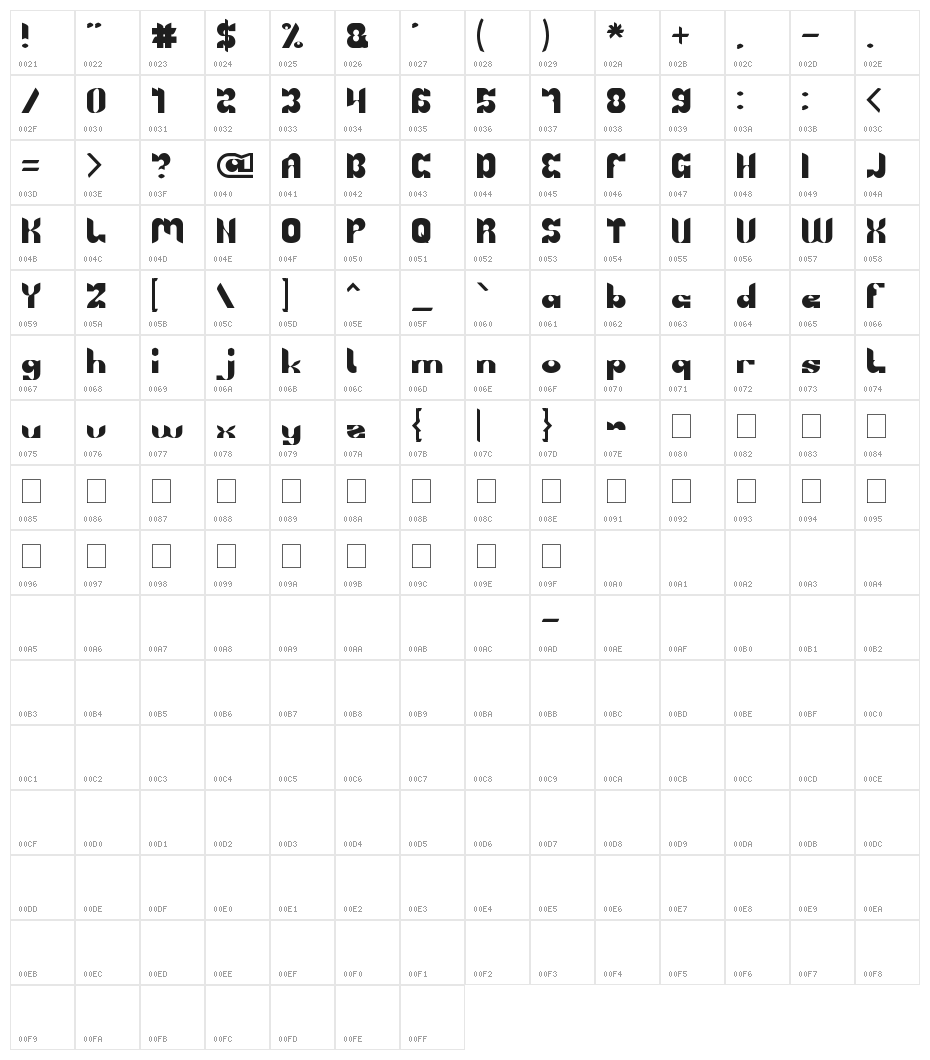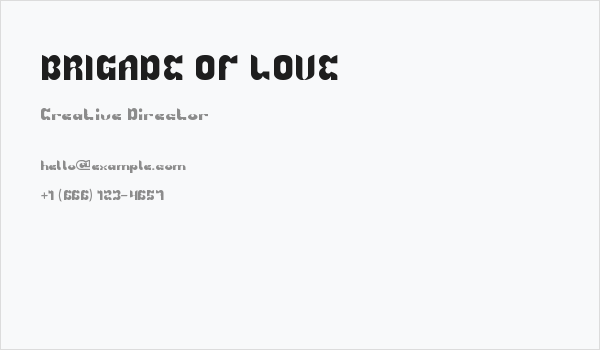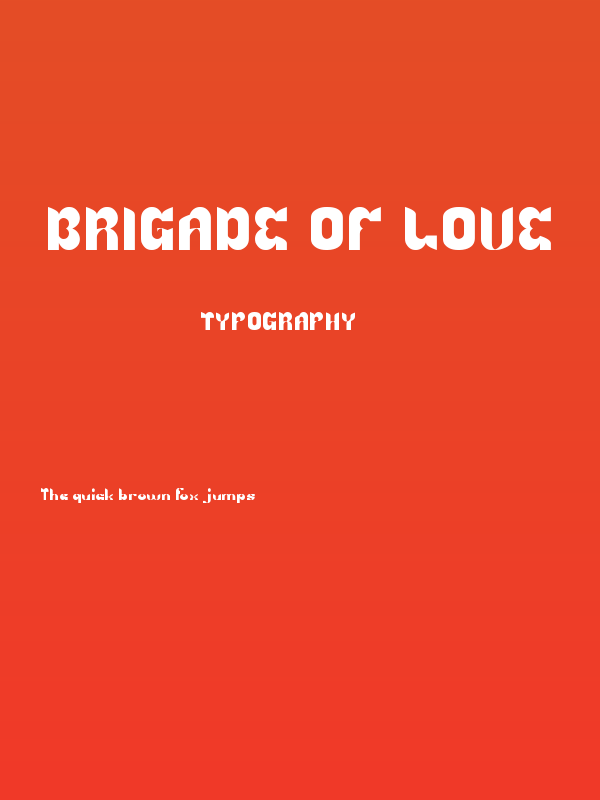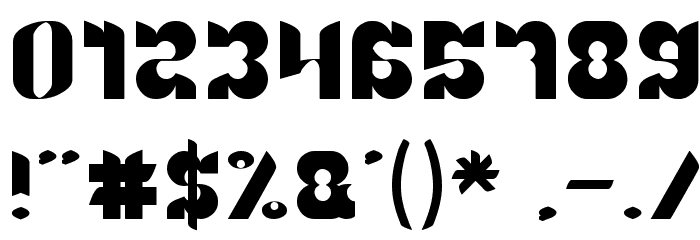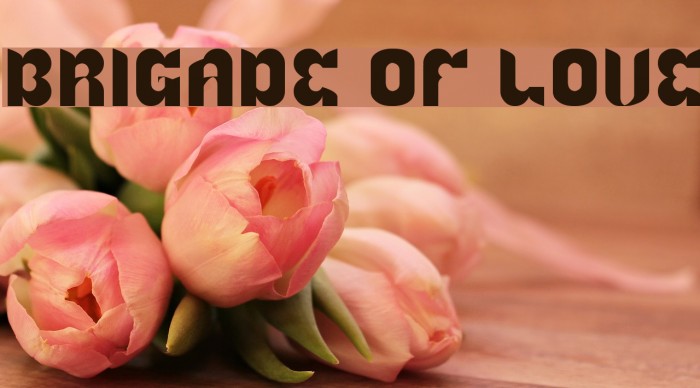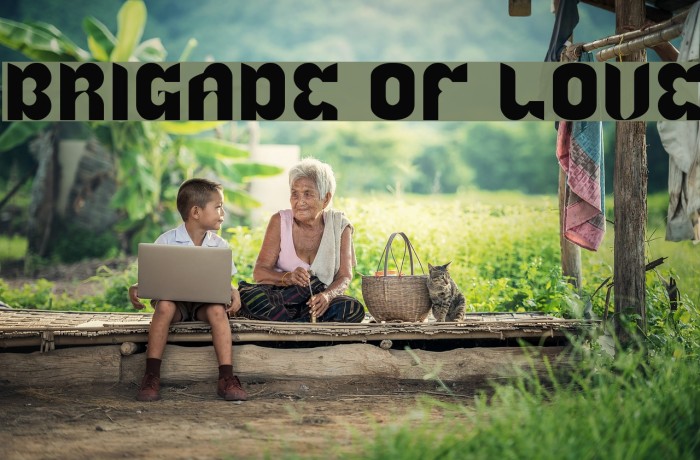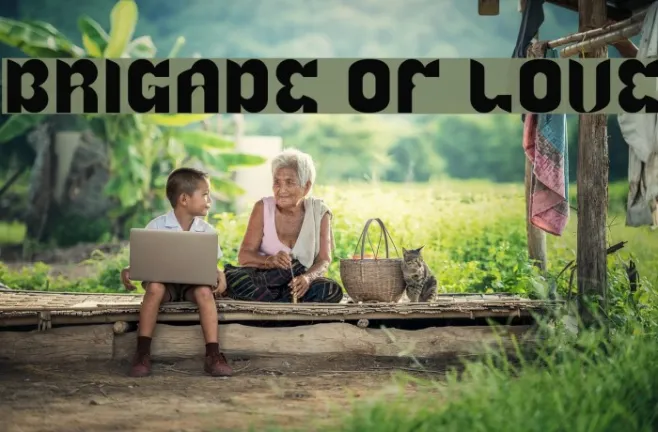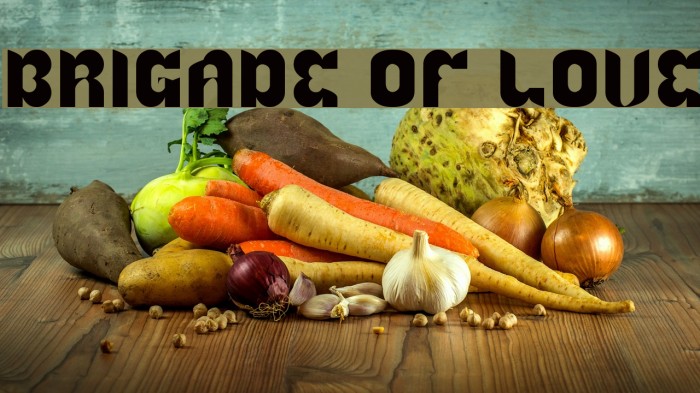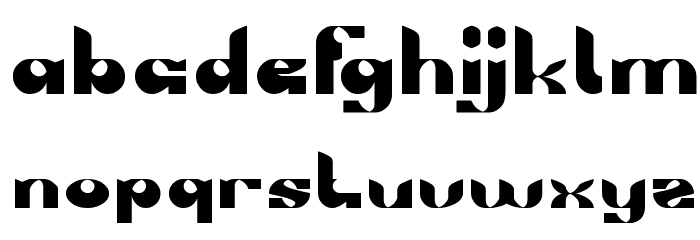
BRIGADE OF LOVE Font
BRIGADE OF LOVE Description
This font features a bold, geometric design with a strong emphasis on angular shapes and sharp edges. The characters are constructed with a combination of thick and thin strokes, creating a striking visual contrast. The uppercase letters are particularly distinctive, with unique cutouts and curves that give the font a modern and edgy appearance. The lowercase letters maintain the same boldness, ensuring consistency across the typeface. Numerals and special characters are designed to match the overall aesthetic, making this font versatile for various design applications.
| Proposed Projects | Ideal for branding, poster design, and modern digital artwork. |